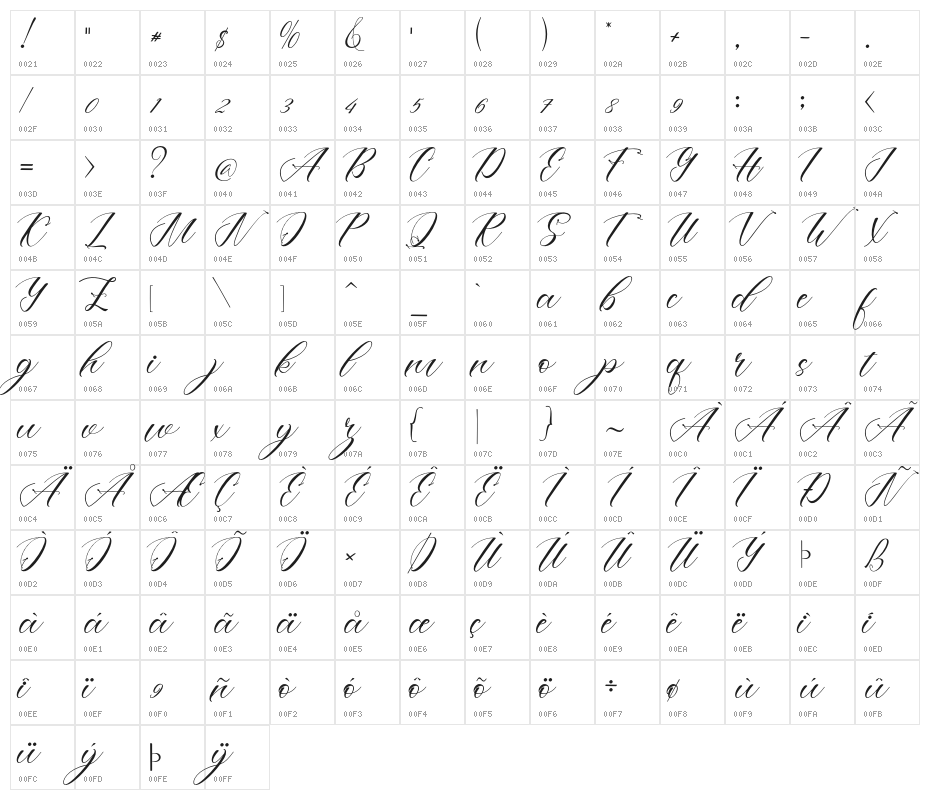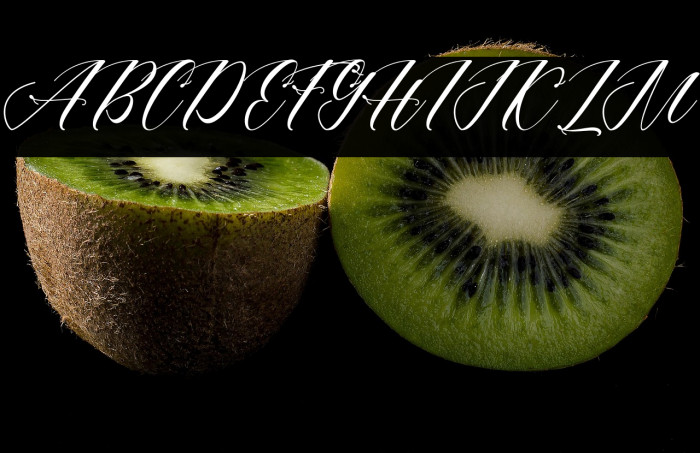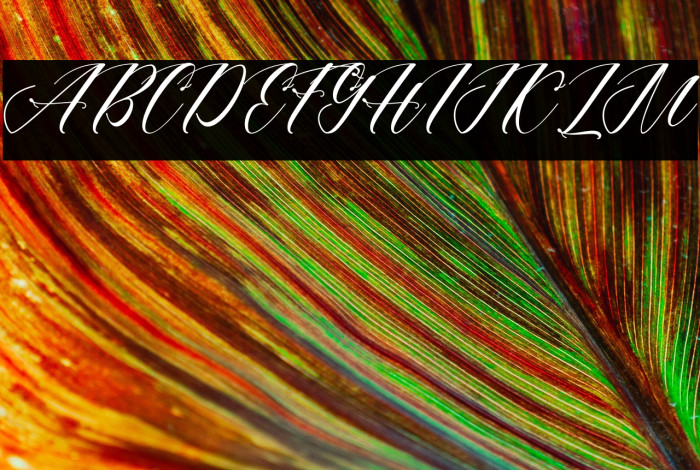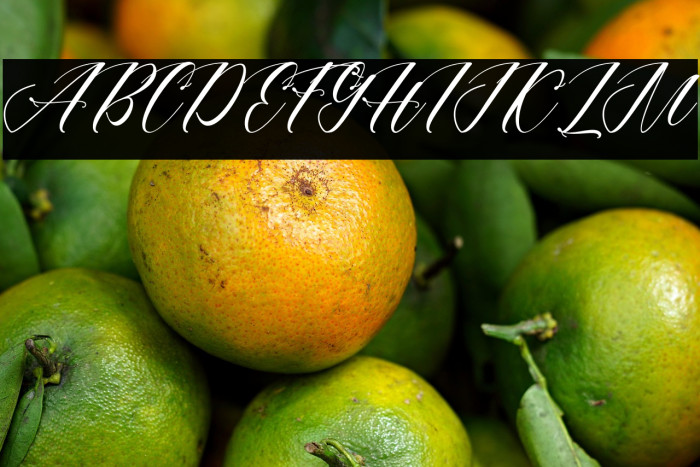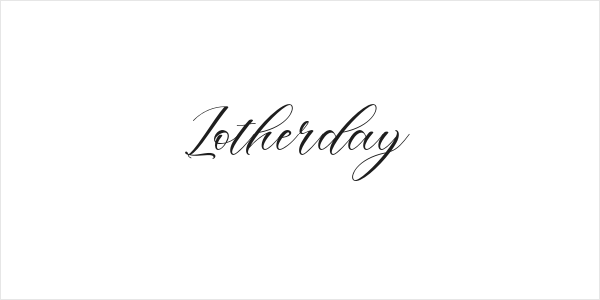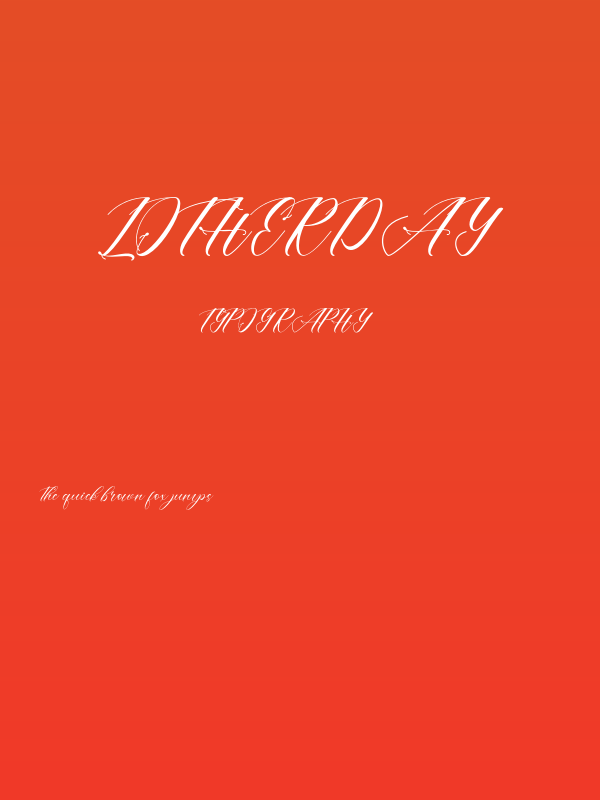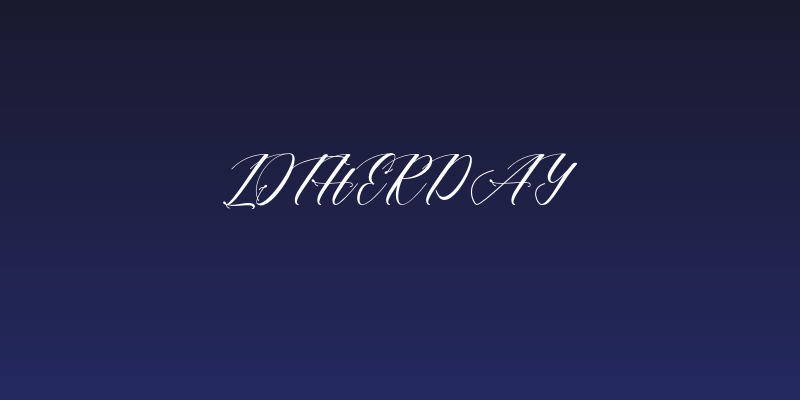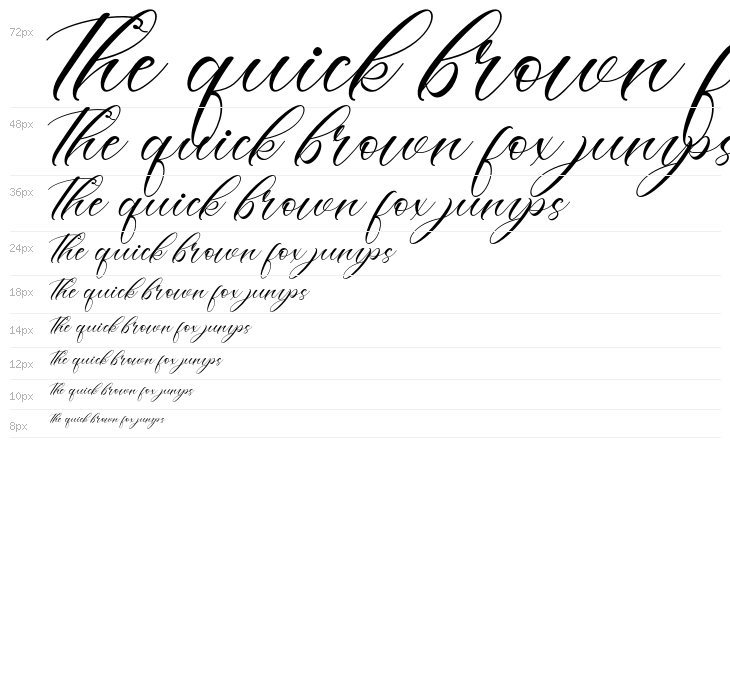
Lotherday Font
Lotherday Description
This elegant script font features flowing, interconnected letters with a sophisticated flair. The uppercase letters are adorned with graceful swashes and loops, adding a touch of luxury and refinement. The lowercase characters maintain a consistent, fluid motion, enhancing the overall elegance. Numbers and special characters are designed with the same attention to detail, ensuring a cohesive look across all elements. The font's high contrast between thick and thin strokes adds to its dramatic and stylish appearance, making it ideal for formal invitations, branding, and decorative purposes.